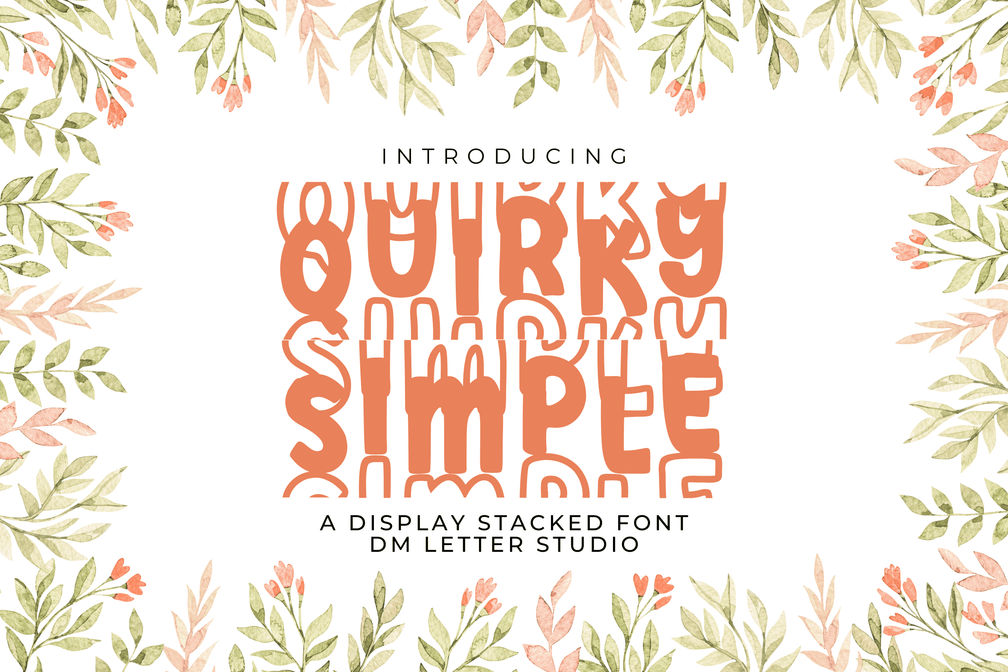
Quirky Simple Stacked
Quirky Simple Stacked – Clean & Playful Display Font
Quirky Simple Stacked is a clean and cheerful stacked display font that brings simplicity and charm together. Its upright, blocky letterforms with a soft playful twist make it ideal for classroom prints, kids’ labels, branding, social media posts, and anything needing a fun yet approachable look.
• Simple Stacked Style: Neat, vertically stacked letters with quirky flair.
• Friendly & Whimsical Look: Adds a lighthearted vibe to all types of creative designs.
• Versatile Usage: Perfect for posters, packaging, logos, and children’s projects.